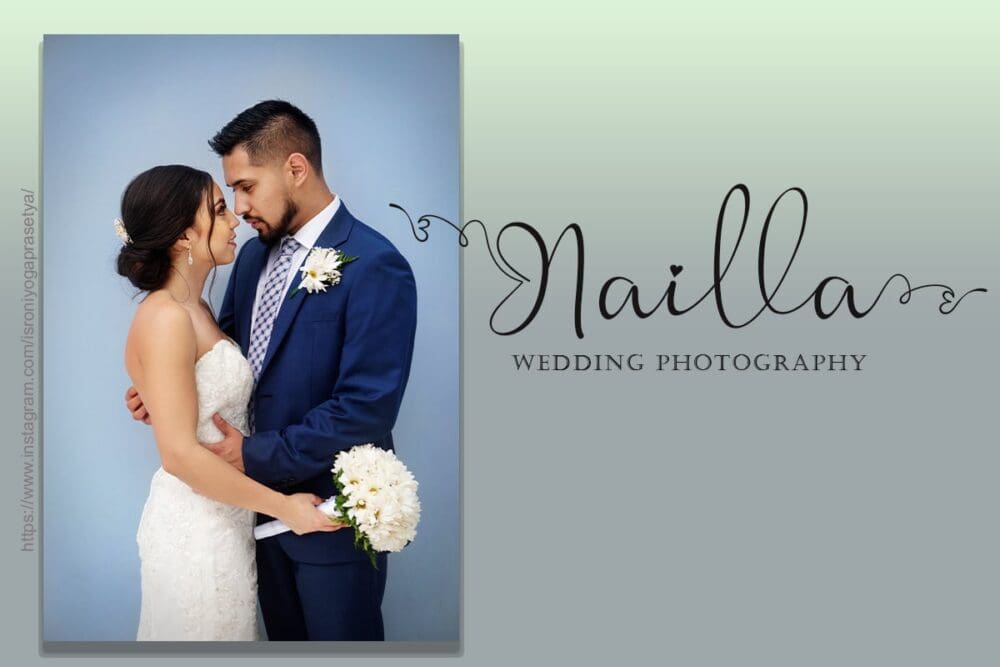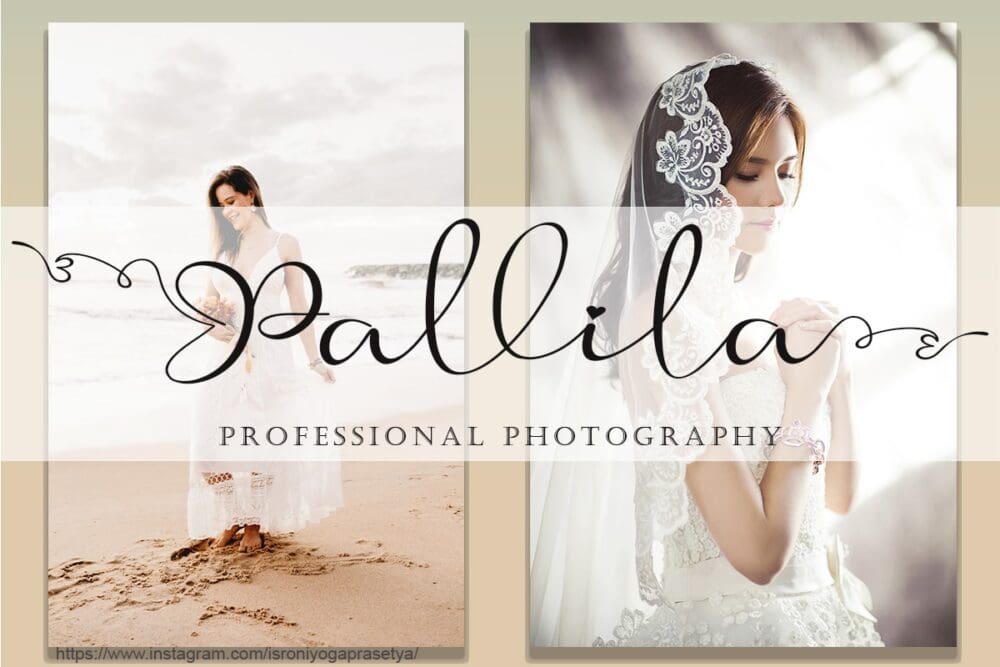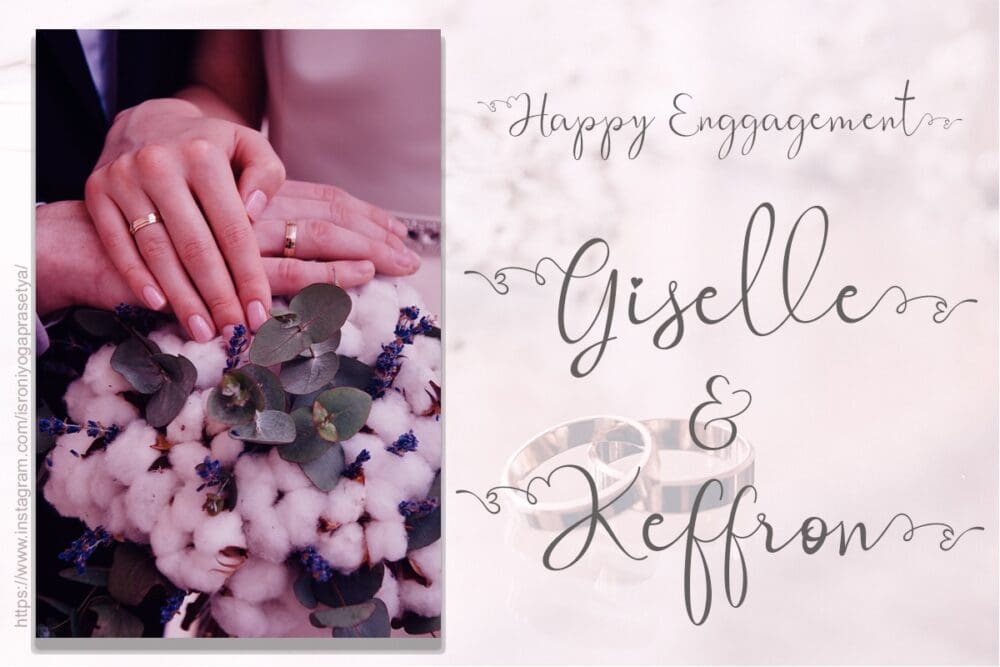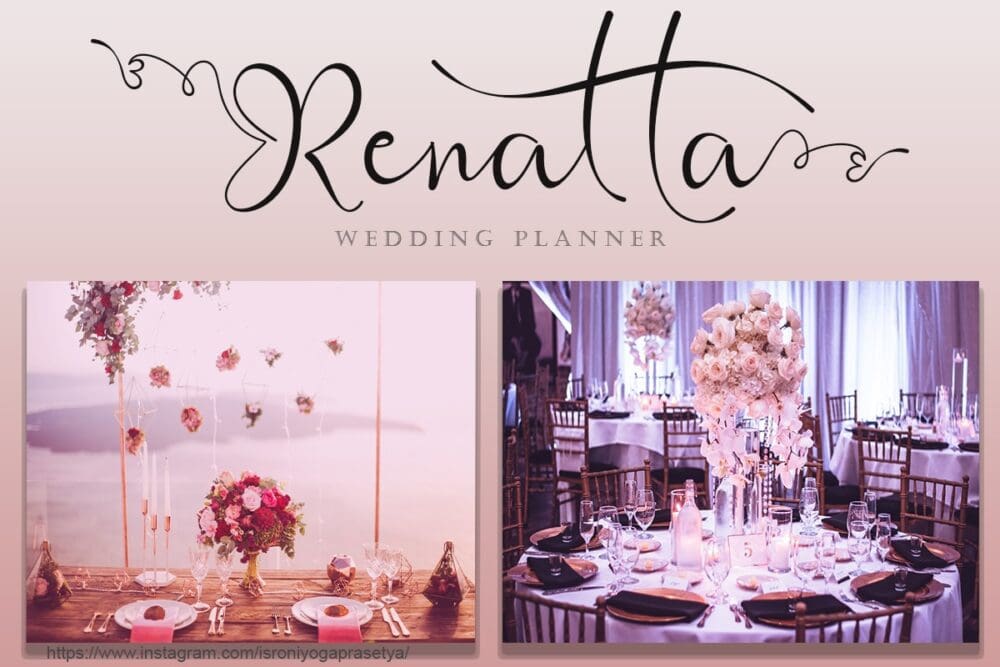
Mikella Font
Mikella font feels equally charming and elegant. It looks stunning on wedding invitations, thank you cards, quotes, greeting cards, logos, business cards and every other design which needs a handwritten touch.